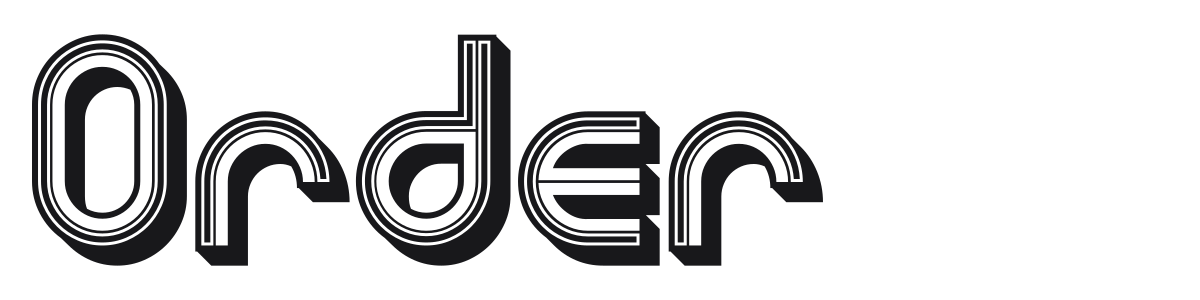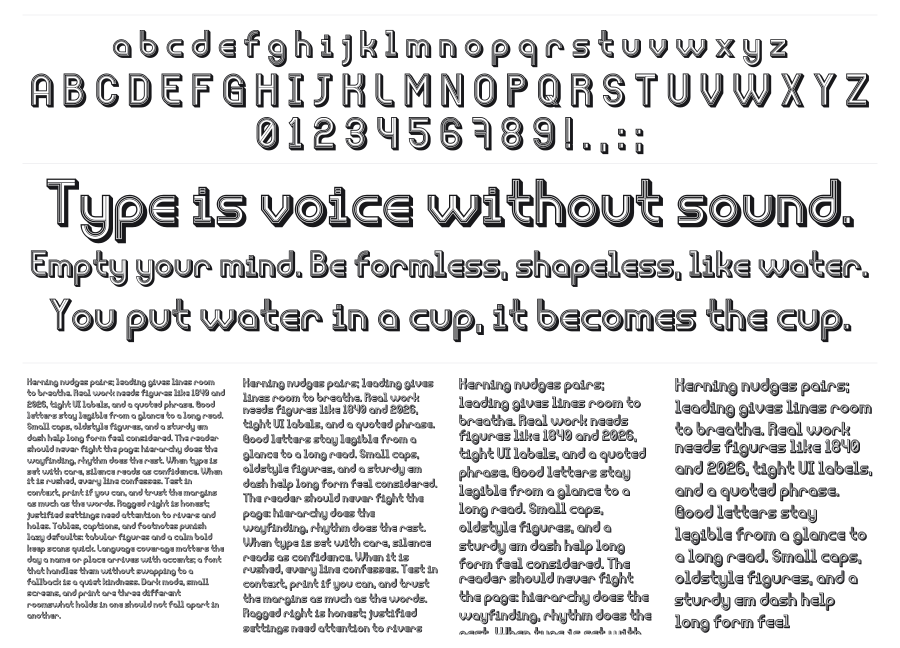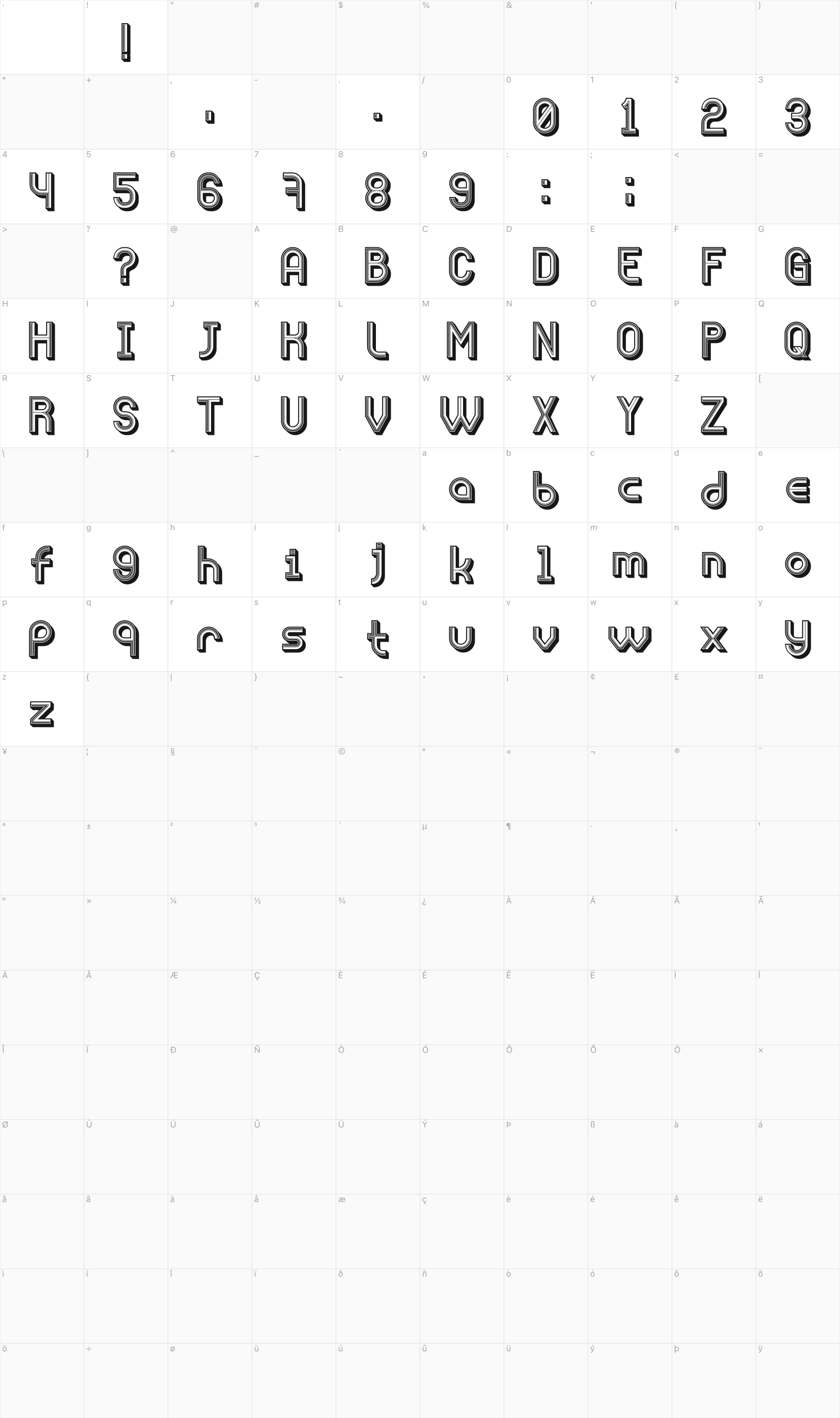
Order
Order is a bold rounded display font drenched in 1970s disco energy, built around a multi-stripe inline shadow effect that gives each character a layered, three-dimensional presence. The heavily rounded terminals and tubular letterforms recall the groovy signage and album covers of the era. It commands attention at large sizes and brings instant retro personality to posters, packaging, and entertainment branding.